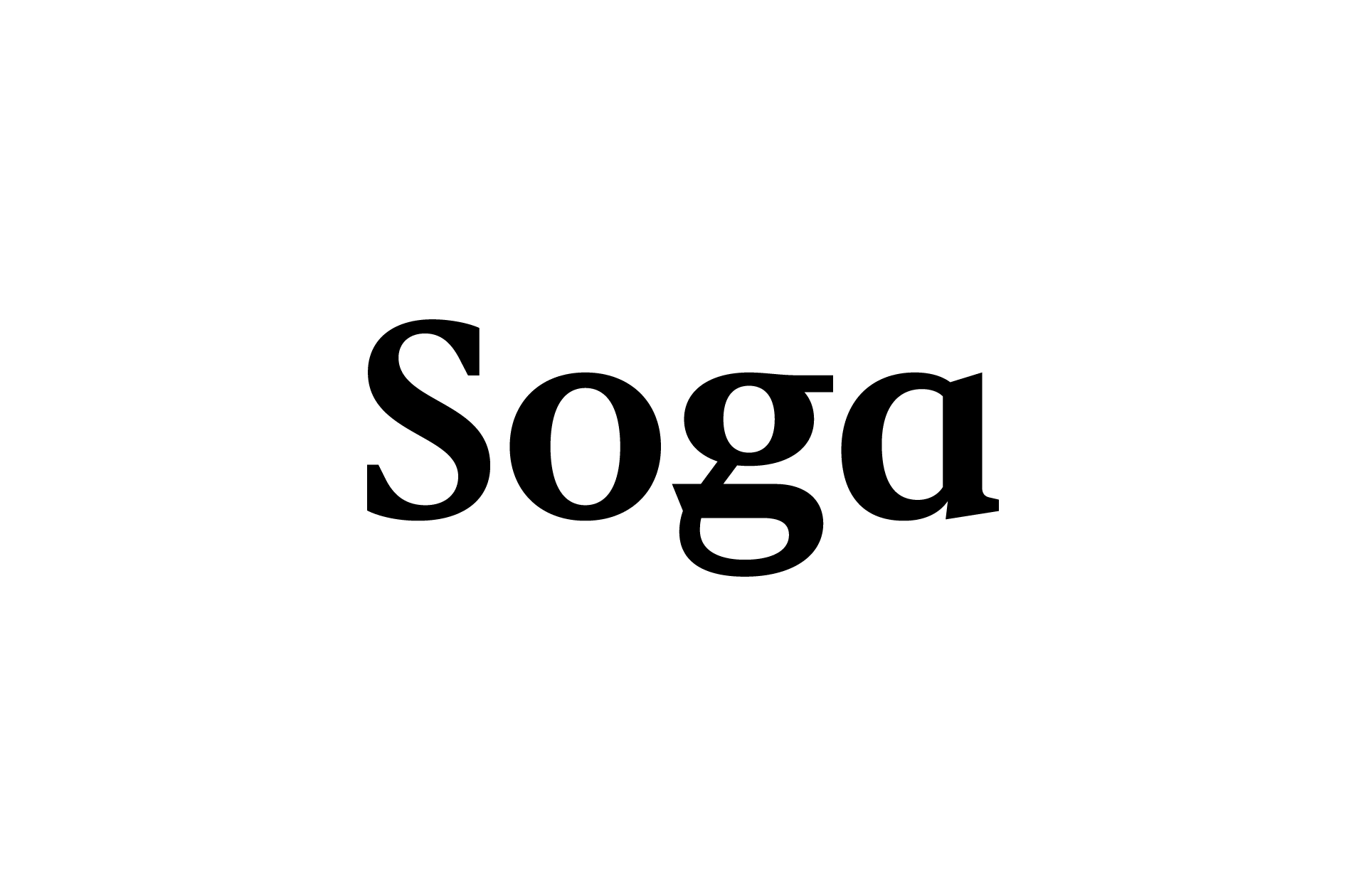
Soga
Custom typeface for Soga, a Slovak art auction company and the leader on the fine art market in Slovakia.
After several approaches were tried and tested, an elegant serif typeface with low static contrast and simple utilitarian character was chosen. The typeface has fine wedge serifs and combines the generous round shapes of the letters o, c, e with the sharply curved arcs of the letters n, m, u. For the needs of the logo, an alternative variant of the letter g was created with an innovative construction, and, in the genre of serif typefaces, an unconventional single-storey letter a.